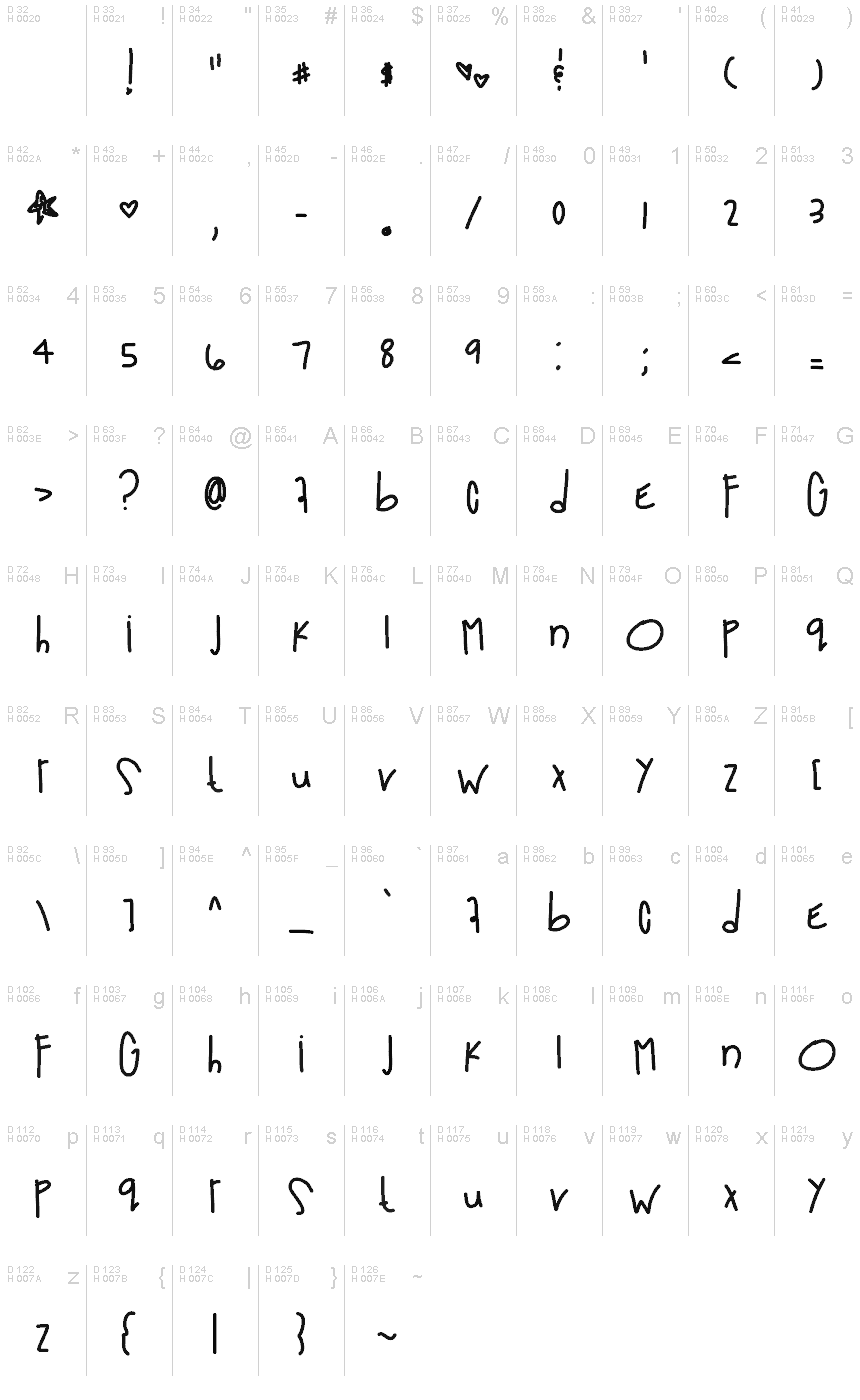
OutOfSpace
Out of Space is a captivating handwritten font that exudes a sense of cosmic exploration and boundless creativity. Designed by Des Gomez, this light and fluid script evokes a playful, whimsical aesthetic, with its organic strokes and dynamic, expressive forms. The font's unique character lends itself seamlessly to a variety of design applications, from playful branding and editorial layouts to impactful poster designs and environmental graphics. Its versatility and distinctive style make Out of Space a compelling choice for designers seeking to infuse their work with a touch of celestial wonder and unbridled imagination.
This font would be a perfect fit for projects that aim to capture a sense of the extraordinary, the avant-garde, or the unexplored. Its lively, handwritten quality lends itself well to design concepts that seek to evoke a sense of wonder, adventure, or the limitless possibilities of the universe.